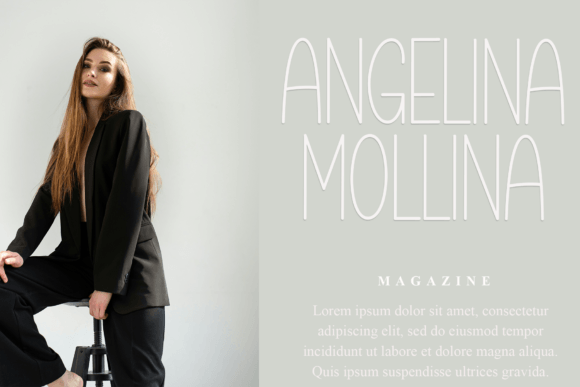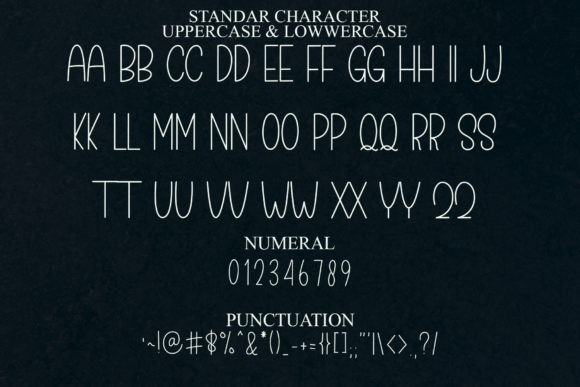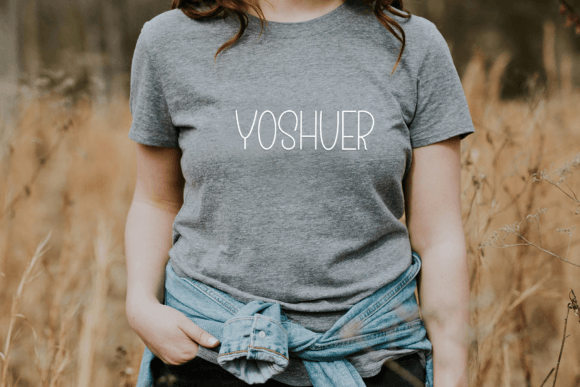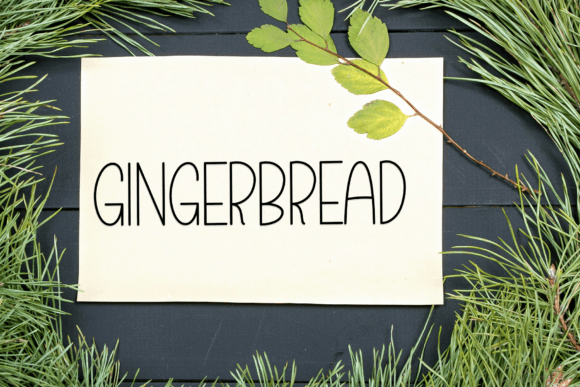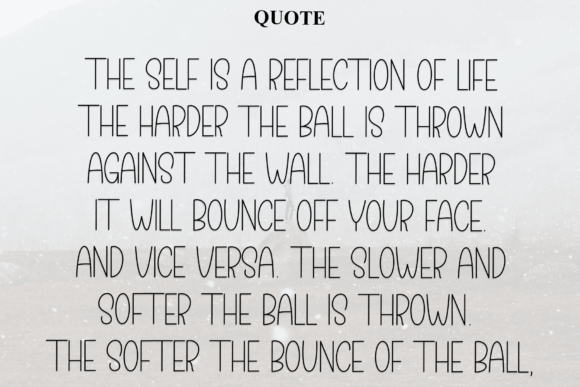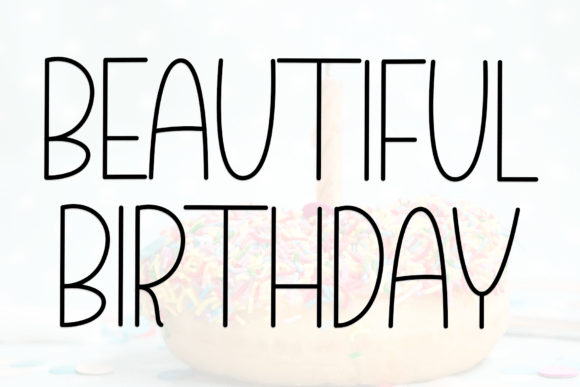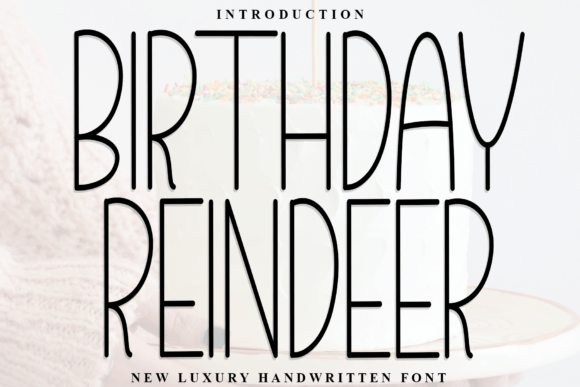
Introducing Birthday Reindeer Font: A Magical Addition to Your Design Arsenal
Are you tired of using the same old fonts for your design projects? Look no further! The Birthday Reindeer Font is here to add a touch of magic to your creations. This beautiful and eye-catching font is designed with a soft, unique touch that will make your designs stand out from the crowd. In this article, we’ll dive into the features and benefits of the Birthday Reindeer Font, and explore how it can elevate your designs to the next level.
A Unique and Versatile Font
The Birthday Reindeer Font is a distinctive and versatile font that is perfect for a wide range of design projects. Its soft and unique touch gives it a special character that makes it meaningful and memorable. The font’s distinctive strokes are carefully crafted to create a natural and effortless look that will appeal to many audiences. Whether you’re working on a design project, craft, or other creative work, the Birthday Reindeer Font is the perfect choice.
Wide Range of Characters
One of the standout features of the Birthday Reindeer Font is its wide range of characters. This font comes with a variety of characters that will allow you to create unique and creative designs. From uppercase and lowercase letters to numbers and punctuation marks, the Birthday Reindeer Font has everything you need to bring your designs to life.
Ideal for Design Projects and Crafts
The Birthday Reindeer Font is perfect for a wide range of design projects and crafts. Whether you’re creating greeting cards, posters, or social media graphics, this font will add a touch of magic to your designs. The font’s natural and effortless look makes it ideal for crafts, such as scrapbooking, journaling, and handmade cards.
So, what are the benefits of using the Birthday Reindeer Font for designers and crafters? Here are just a few:
• Unique and eye-catching designs: The Birthday Reindeer Font will add a touch of magic to your designs, making them stand out from the crowd.
• Versatility: The font’s distinctive strokes and natural look make it perfect for a wide range of design projects and crafts.
In conclusion, the Birthday Reindeer Font is a beautiful and eye-catching font that is perfect for designers and crafters. Its unique and versatile design makes it ideal for a wide range of design projects and crafts, from greeting cards to social media graphics. With its wide range of characters and compatibility with various applications, the Birthday Reindeer Font is a must-have for anyone looking to add a touch of magic to their designs.